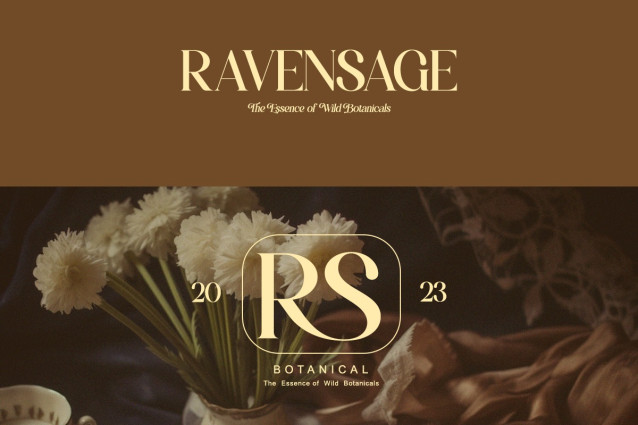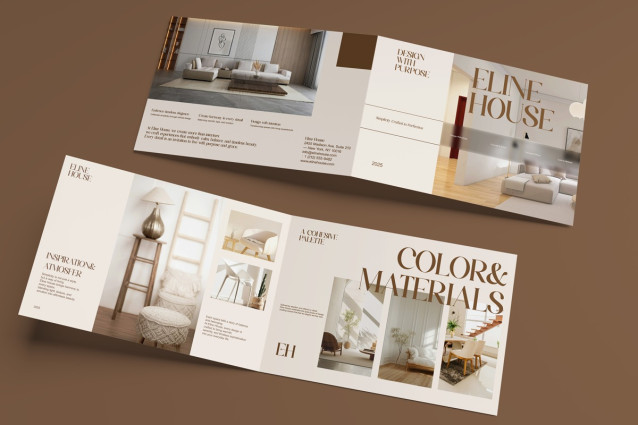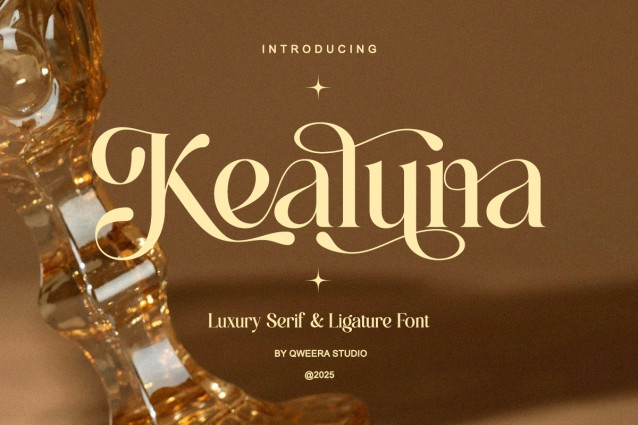
Kealuna Font
Kealuna Font a luxury serif font created to bring elegance and warmth into modern design. With beautiful ligatures and smooth curves, Kealuna feels graceful, premium, and timeless.Perfect for designers working on fashion brands, beauty products, wedding stationery, and editorial layouts that require a sophisticated serif voice.